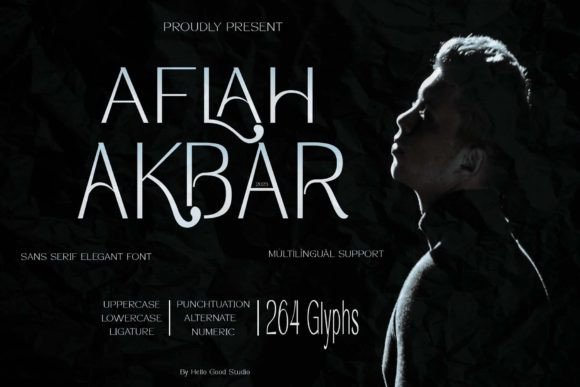
Aflah Akbar: A Masterclass in Timeless Design
Aflah Akbar is an exquisite sans serif font that embodies the perfect balance of timeless sophistication and modern simplicity. Its clean lines, balanced proportions, and elegant curves make it a versatile choice for a wide range of design projects, from minimalist branding to elegant typography.
- ✨ Clean and elegant design: Aflah Akbar’s sleek lines and curves make it perfect for designs that require a touch of sophistication.
- ✅ Versatility: This font is suitable for a wide range of design projects, from branding and advertising to packaging and digital media.
- 💡 Excellent legibility: Aflah Akbar’s balanced proportions and clear letterforms ensure that your text is always easy to read.
Small Quirks and Limitations:
While Aflah Akbar is an exceptional font, it’s not without its quirks. For instance:
- 🤔 Limited availability of stylistic alternates: Aflah Akbar has a limited set of stylistic alternates, which may not offer as much flexibility as some designers might like.
- ⚠️ Requires careful kerning: As with any font, Aflah Akbar requires careful kerning to ensure optimal results, particularly when working with larger text sizes.
The Designer Inspiration Behind Aflah Akbar
Aflah Akbar was designed with the goal of creating a font that would embody the perfect balance of timeless sophistication and modern simplicity. The designer’s inspiration came from a range of sources, including classic typography, modern design trends, and a passion for creating elegant and legible fonts. While the real story behind Aflah Akbar’s creation may be unknown, its designer undoubtedly drew inspiration from the world of typography and design.
Q: What makes Aflah Akbar a versatile font?
A: Aflah Akbar’s clean lines, balanced proportions, and elegant curves make it suitable for a wide range of design projects, from minimalist branding to elegant typography.
Q: Does Aflah Akbar support OpenType features?
A: Yes, Aflah Akbar supports OpenType features, including ligatures, stylistic alternates, and glyphs.
Q: Is Aflah Akbar suitable for body text?
A: Yes, Aflah Akbar is a highly legible font that is suitable for body text, particularly in larger text sizes.